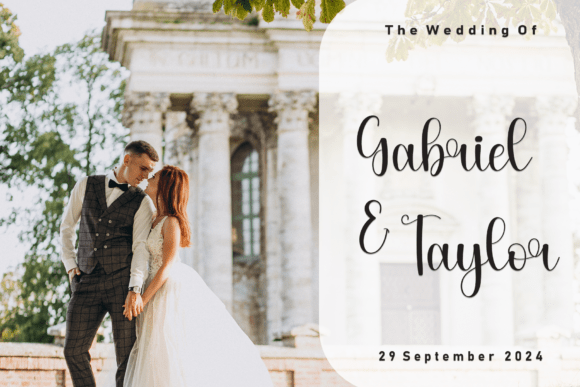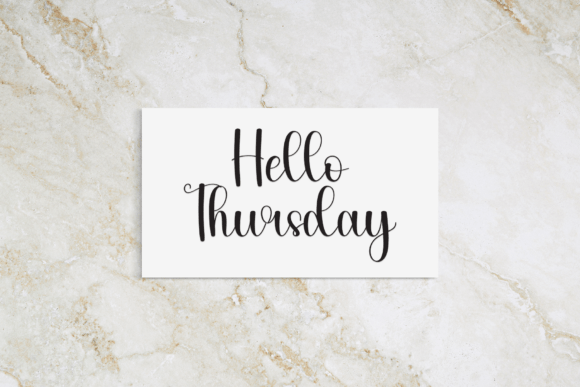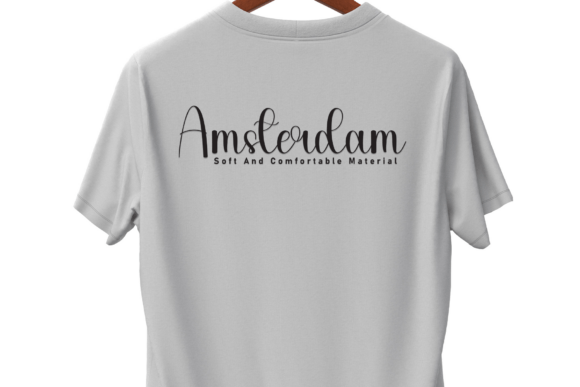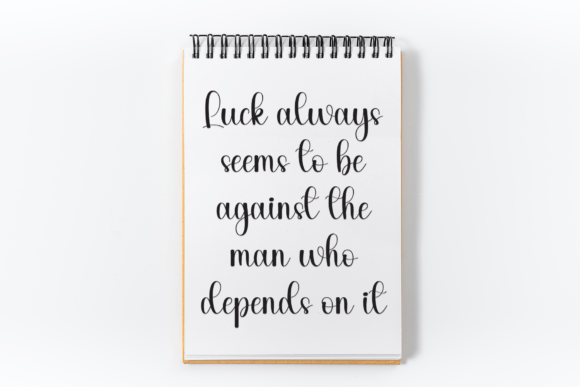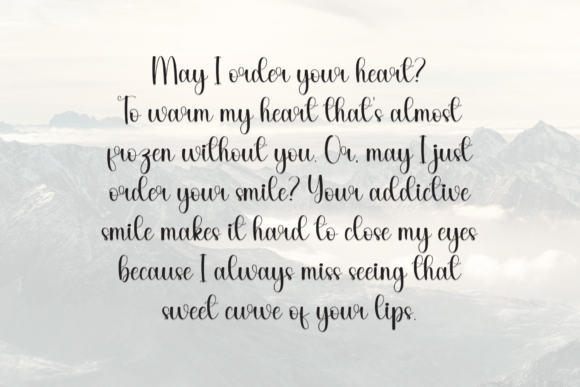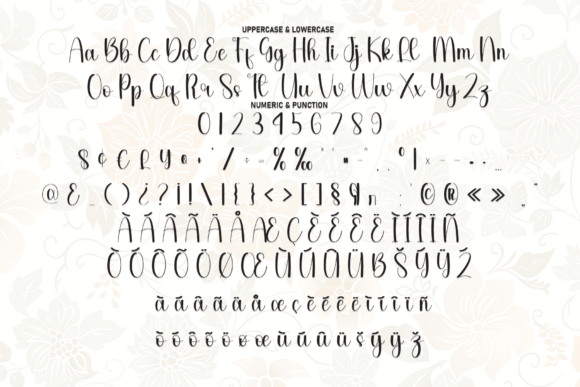
Introducing Background Font: Elevate Your Designs with Artistic Flair and Contemporary Elegance
In the world of typography, a well-crafted font can make all the difference in elevating your designs from ordinary to extraordinary. If you’re a designer or crafter looking for a stylish script font that exudes artistic flair and contemporary elegance, look no further than Background Font. This stunning font is designed to capture the essence of hand-painted calligraphy with a modern twist, making it perfect for a wide range of design applications.
The Art of Hand-Painted Calligraphy
Background Font is inspired by the fluid brush strokes and dynamic curves of hand-painted calligraphy. Each letterform is carefully crafted to convey a sense of movement and expressiveness, giving your designs a unique and artistic touch. The font’s natural flow and vibrant character make it perfect for designs that require a creative and sophisticated edge.
Key Features of Background Font
- Fluid Brush Strokes: Background Font features fluid brush strokes that give your designs a hand-painted look and feel.
- Dynamic Curves: The font’s dynamic curves add a touch of elegance and sophistication to your designs.
- Expressive Letterforms: Each letterform is carefully crafted to convey a sense of movement and expressiveness.
- Modern Twist: Background Font brings a modern twist to traditional hand-painted calligraphy, making it perfect for contemporary designs.
Background Font is an incredibly versatile font that can be used for a wide range of design applications, including:
- Logos: Add a creative and sophisticated touch to your logos with Background Font.
- Invitations: Make your invitations stand out with the font’s elegant and artistic flair.
- Packaging: Elevate your packaging designs with Background Font’s modern and sophisticated look.
- Social Media Graphics: Add a touch of creativity and elegance to your social media graphics with Background Font.
Why Choose Background Font?
With so many fonts to choose from, why should you choose Background Font? Here are just a few reasons:
- Unique and Artistic: Background Font offers a unique and artistic look that will set your designs apart from the crowd.
- Versatile: The font’s versatility makes it perfect for a wide range of design applications.
- High-Quality: The font is designed to deliver high-quality results, making it perfect for professional designers and crafters.
Background Font Key Features:
- Stylish script font
- Fluid brush strokes
- Dynamic curves
- Expressive letterforms
- Modern twist on traditional hand-painted calligraphy
- Perfect for logos, invitations, packaging, and social media graphics
- Unique and artistic look
- High-quality results